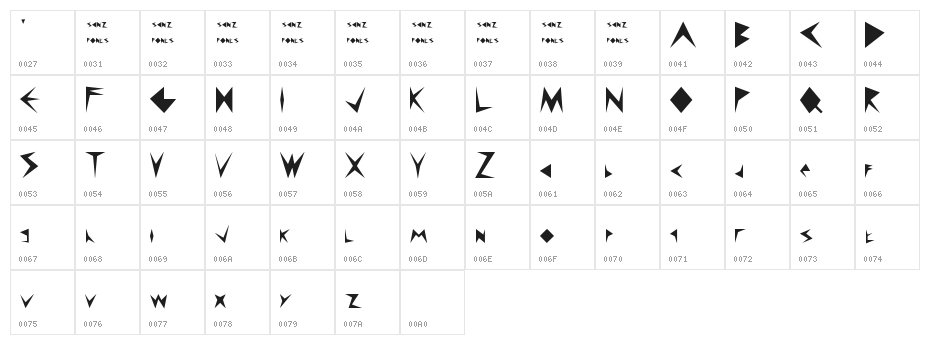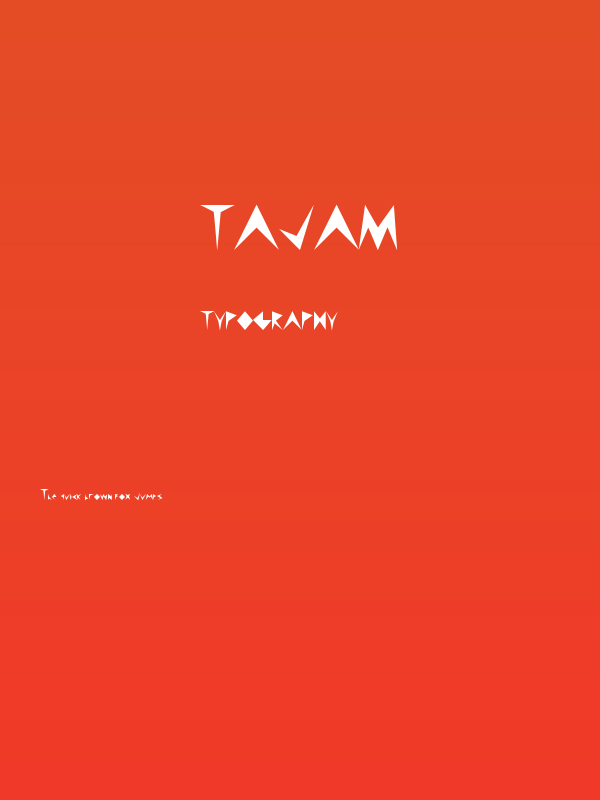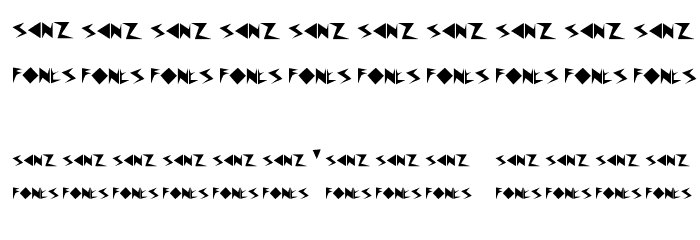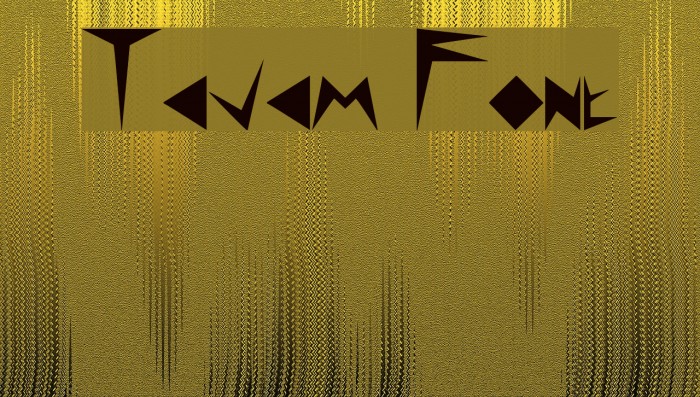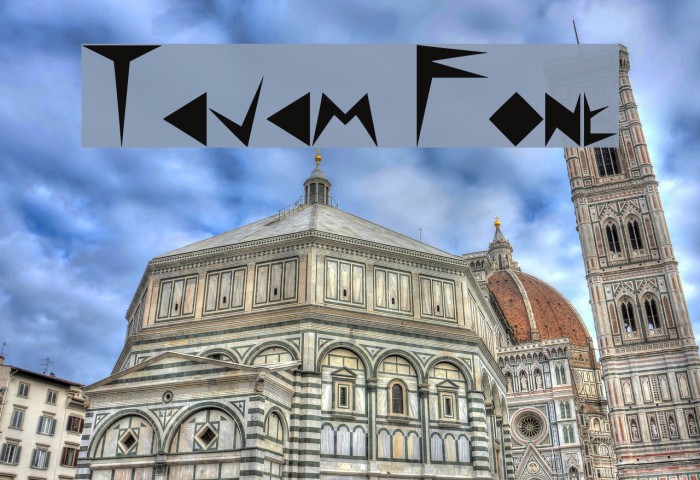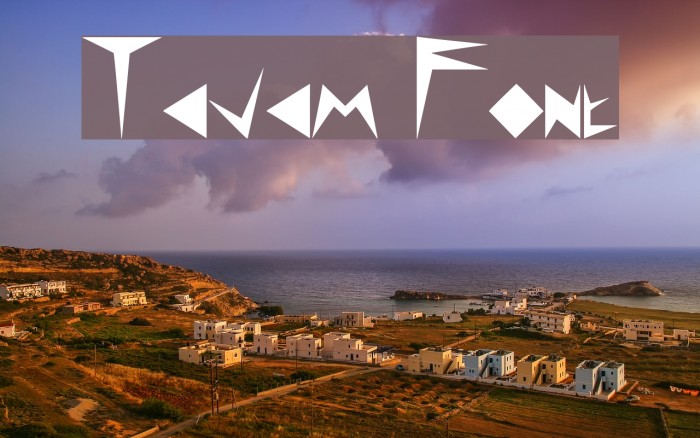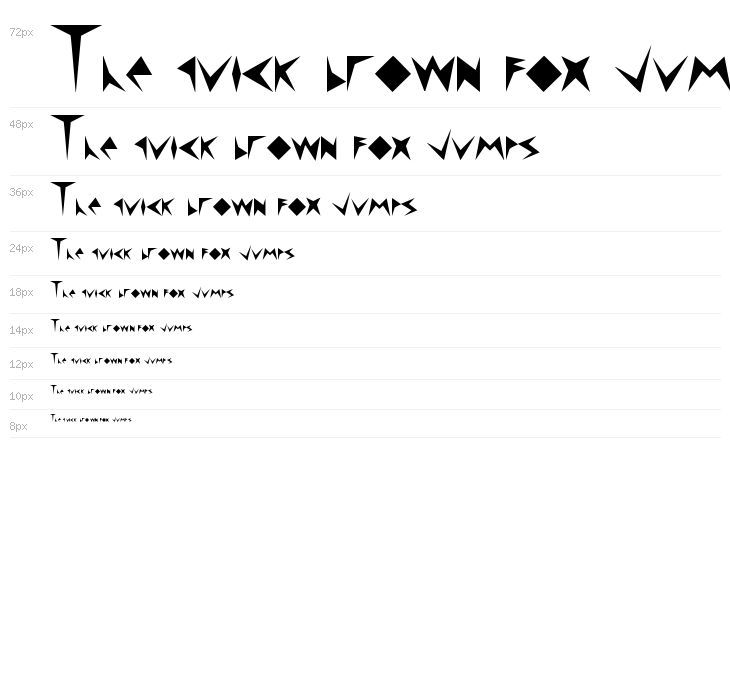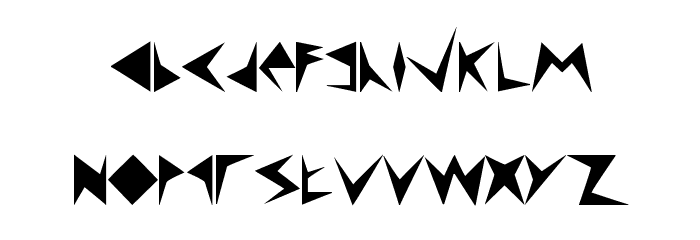
Tajam Font
Tajam Description
This font features a bold, angular design with sharp, jagged edges that create a dynamic and aggressive appearance. The characters are highly stylized, with exaggerated points and geometric shapes that give it a futuristic and edgy feel. The uppercase and lowercase letters maintain a consistent style, emphasizing the angular theme throughout. The numbers and special characters are equally distinctive, ensuring a cohesive look across all text elements. This font's unique style makes it stand out, ideal for projects that require a strong visual impact.
TAJAM UPPERCASE
TAJAM LOWERCASE
TAJAM OTHER CHARS
| Overall Style | Futuristic, Edgy |
| Proposed Projects | Ideal for music album covers, video game titles, movie posters, and branding for edgy or modern products. |